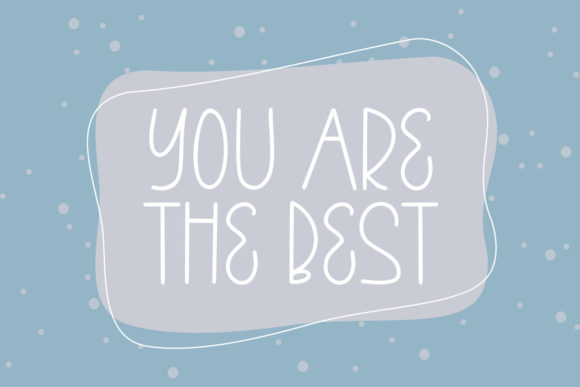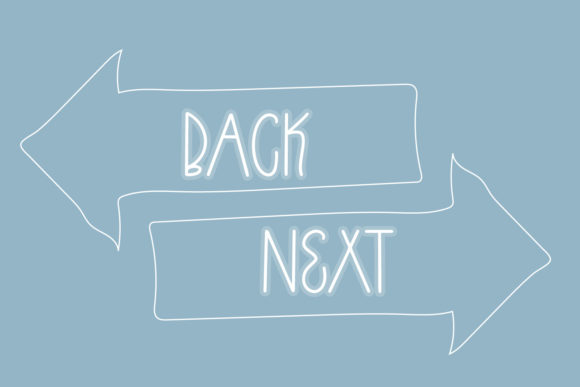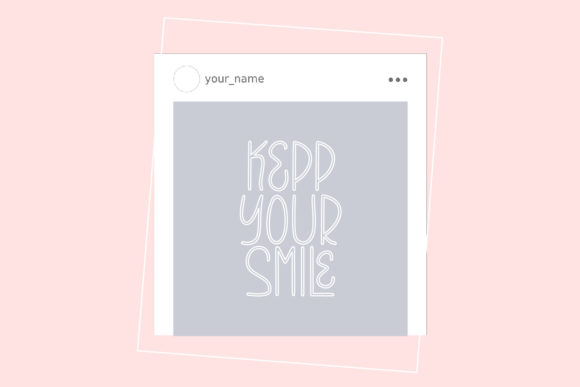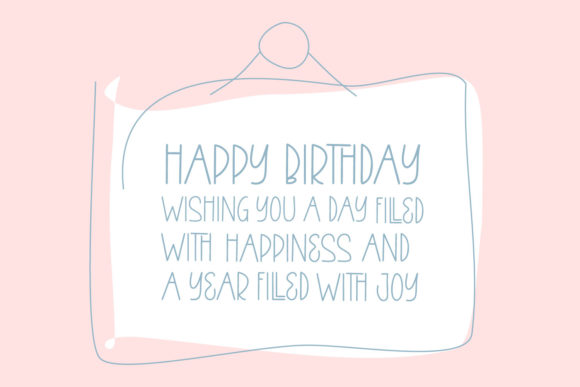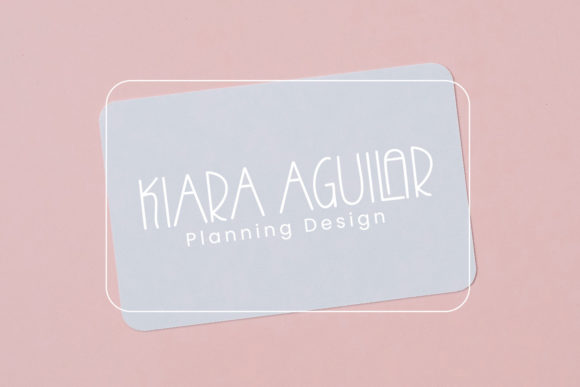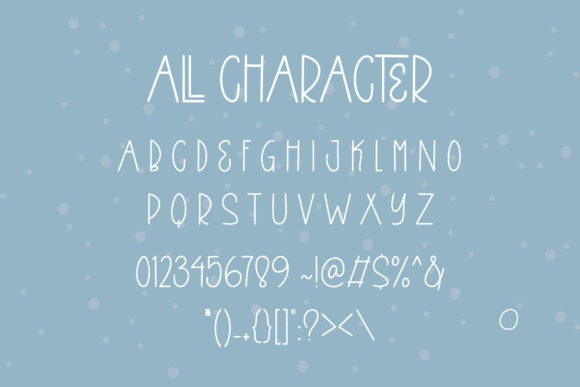
Introducing Colour Happy Font: The Ultimate Sans Serif for Creative Projects
Are you tired of using the same old fonts for your creative projects? Look no further than Colour Happy Font, a minimal and neat sans serif font that’s sure to make your designs stand out. With its clean lines and effortless charm, Colour Happy is the perfect addition to any project, from crafting and DIY tutorials to graphic design and digital art.
What Makes Colour Happy Font So Special?
Colour Happy Font is more than just a pretty face – it’s a versatile and highly functional font that’s designed to make your creative process easier and more enjoyable. Here are just a few reasons why Colour Happy is a must-have for designers and crafters:
- Minimal and Neat Design: Colour Happy’s sans serif design is sleek and modern, making it perfect for projects that require a clean and sophisticated look.
- Highly Versatile: Whether you’re working on a crafting tutorial, a graphic design project, or a digital art piece, Colour Happy Font can easily be matched to a wide range of projects and styles.
- PUA Encoded: Colour Happy Font is PUA (Private Use Area) encoded, which means you can access all of the amazing glyphs and ligatures with ease. This makes it easy to add unique and creative touches to your designs.
One of the best things about Colour Happy Font is how easy it is to use. Here are a few tips for incorporating Colour Happy into your creative projects:
- Pair it with Other Fonts: Colour Happy Font pairs well with a wide range of fonts, from bold and playful to elegant and sophisticated. Experiment with different font combinations to find the perfect look for your project.
- Use it for Headings and Titles: Colour Happy Font is perfect for headings and titles, where its clean lines and modern design can really make your text stand out.
- Add Creative Touches with Glyphs and Ligatures: With Colour Happy’s PUA encoding, you can easily access a wide range of glyphs and ligatures to add unique and creative touches to your designs.
So why should you choose Colour Happy Font for your creative projects? Here are just a few benefits of using this amazing font:
- Save Time: With Colour Happy Font, you can create professional-looking designs in no time. Its clean lines and modern design make it easy to read and understand, saving you time and effort in the long run.
- Stand Out from the Crowd: Colour Happy Font is designed to make your designs stand out from the crowd. Its unique and creative touches will help your projects get noticed and leave a lasting impression.
- Perfect for Digital and Print Projects: Whether you’re working on a digital project or a print project, Colour Happy Font is the perfect choice. Its high-quality design and versatility make it suitable for a wide range of applications.
In conclusion, Colour Happy Font is a must-have for designers and crafters who want to take their creative projects to the next level. With its minimal and neat design, highly versatile nature, and PUA encoding, Colour Happy is the perfect addition to any project. So why wait? Download Colour Happy Font today and start creating amazing designs that will leave a lasting impression!